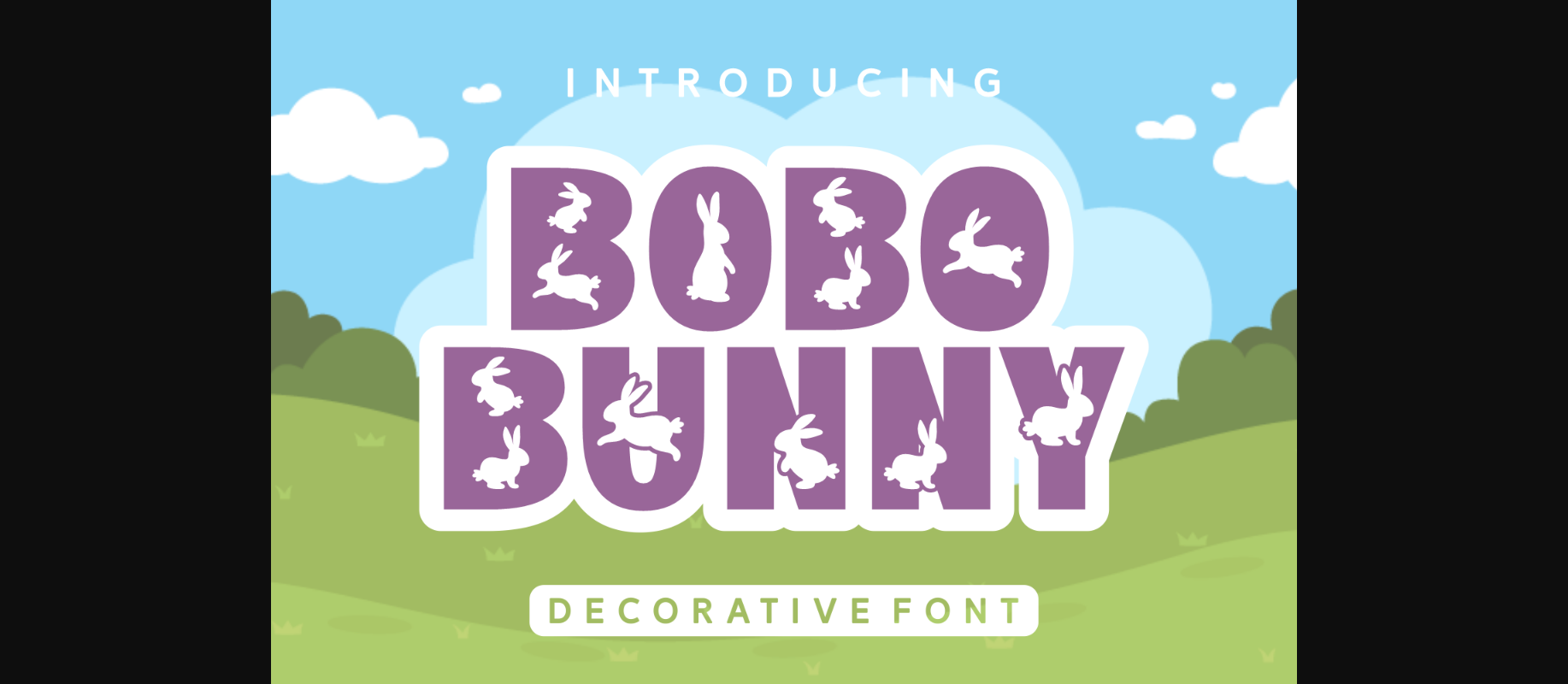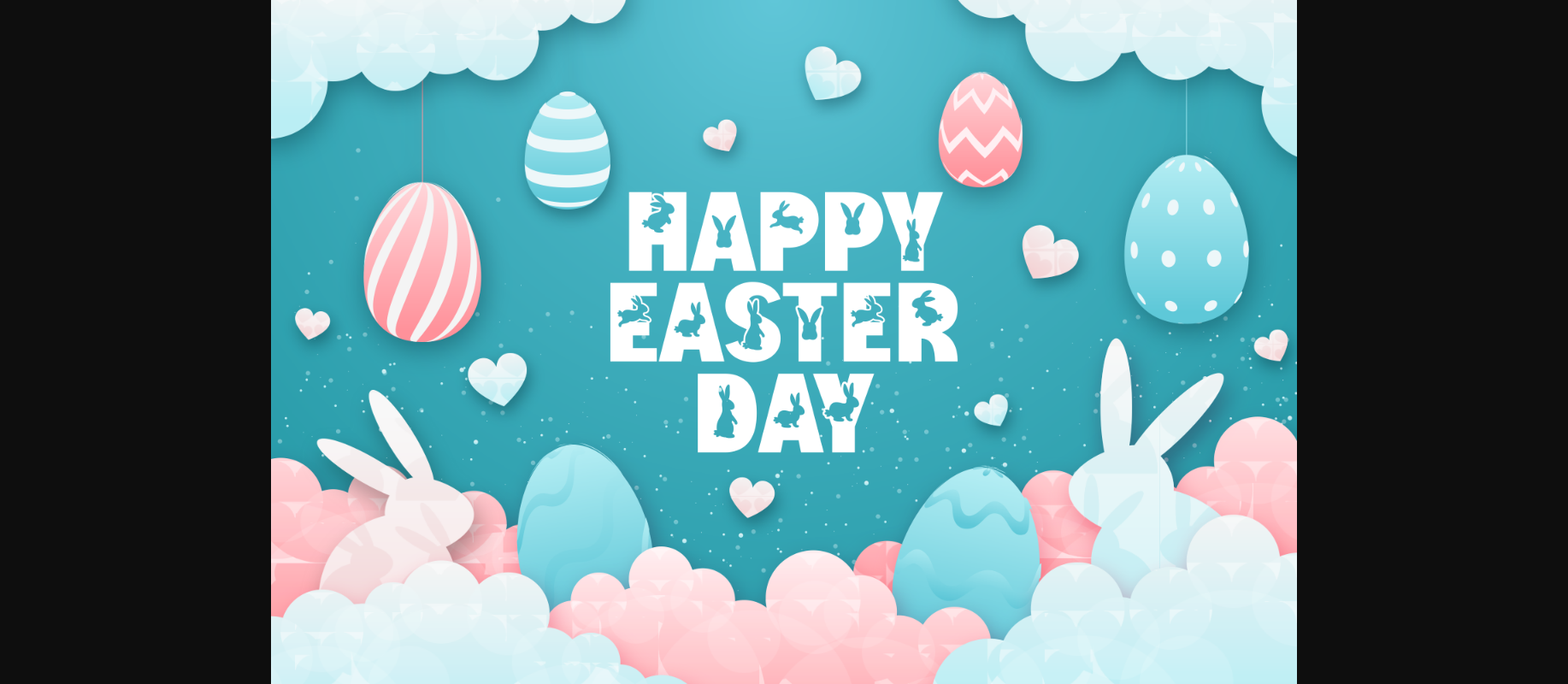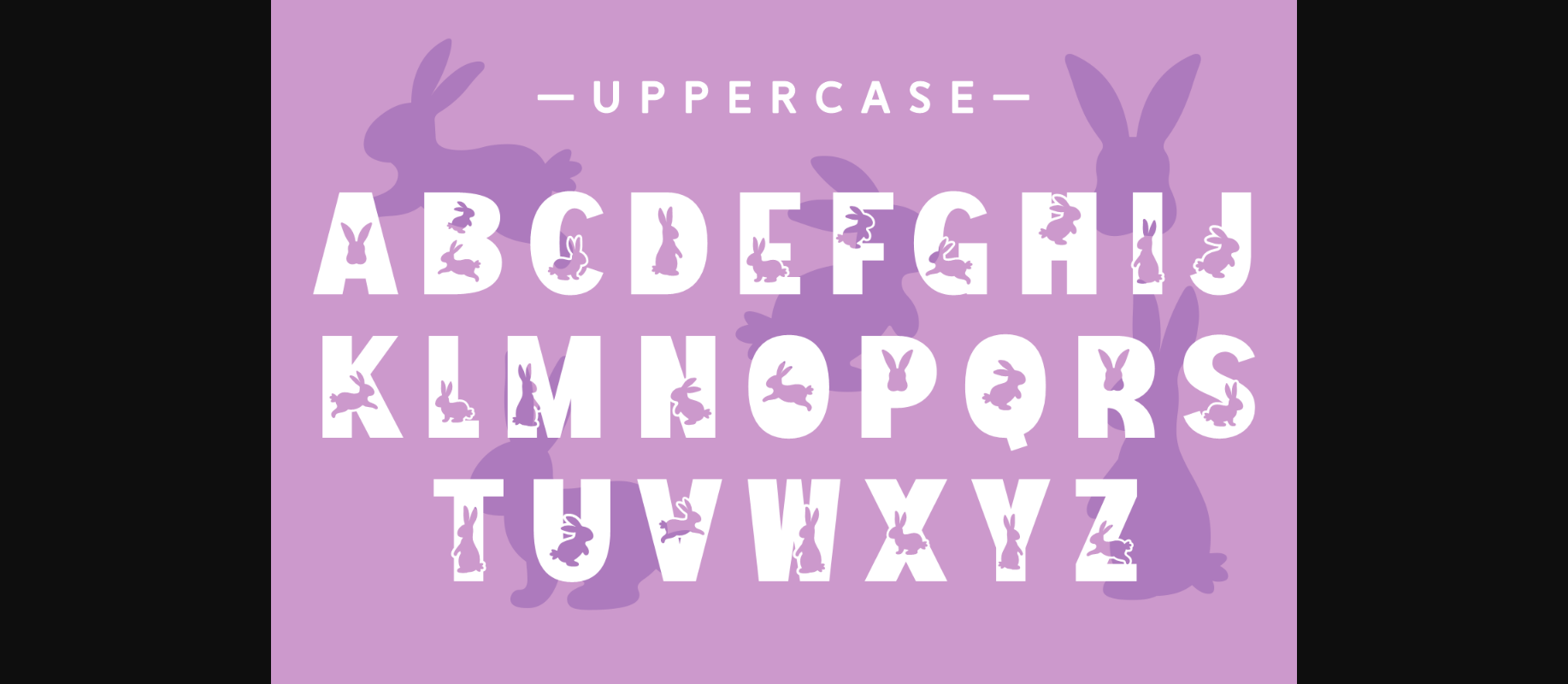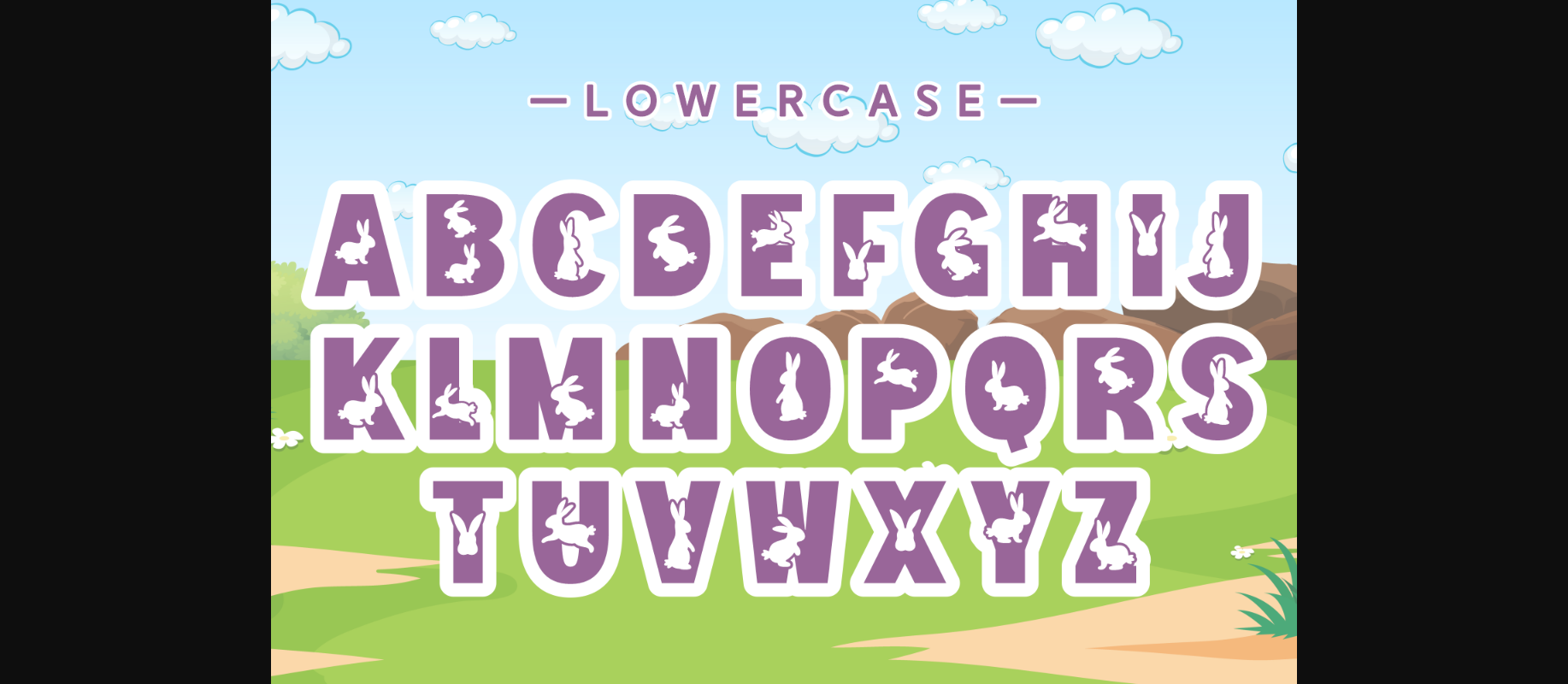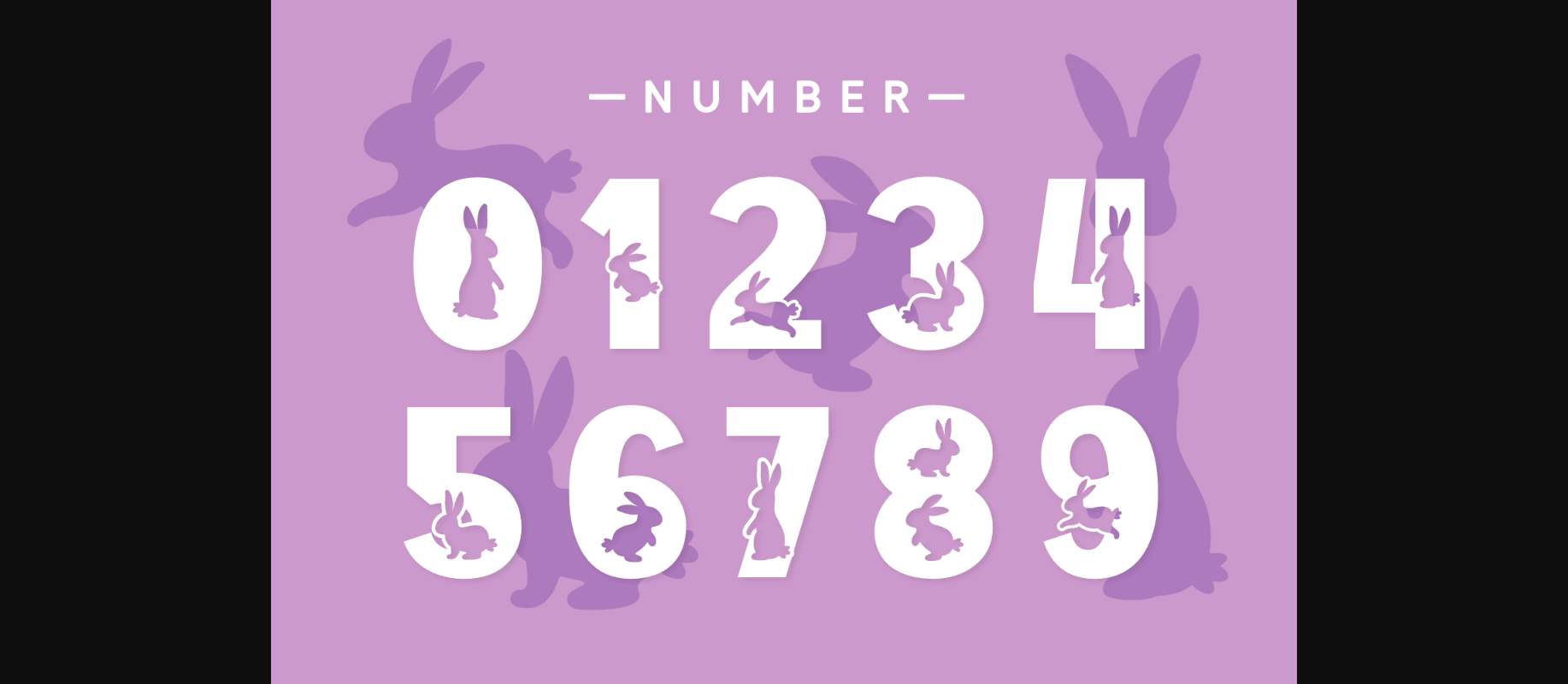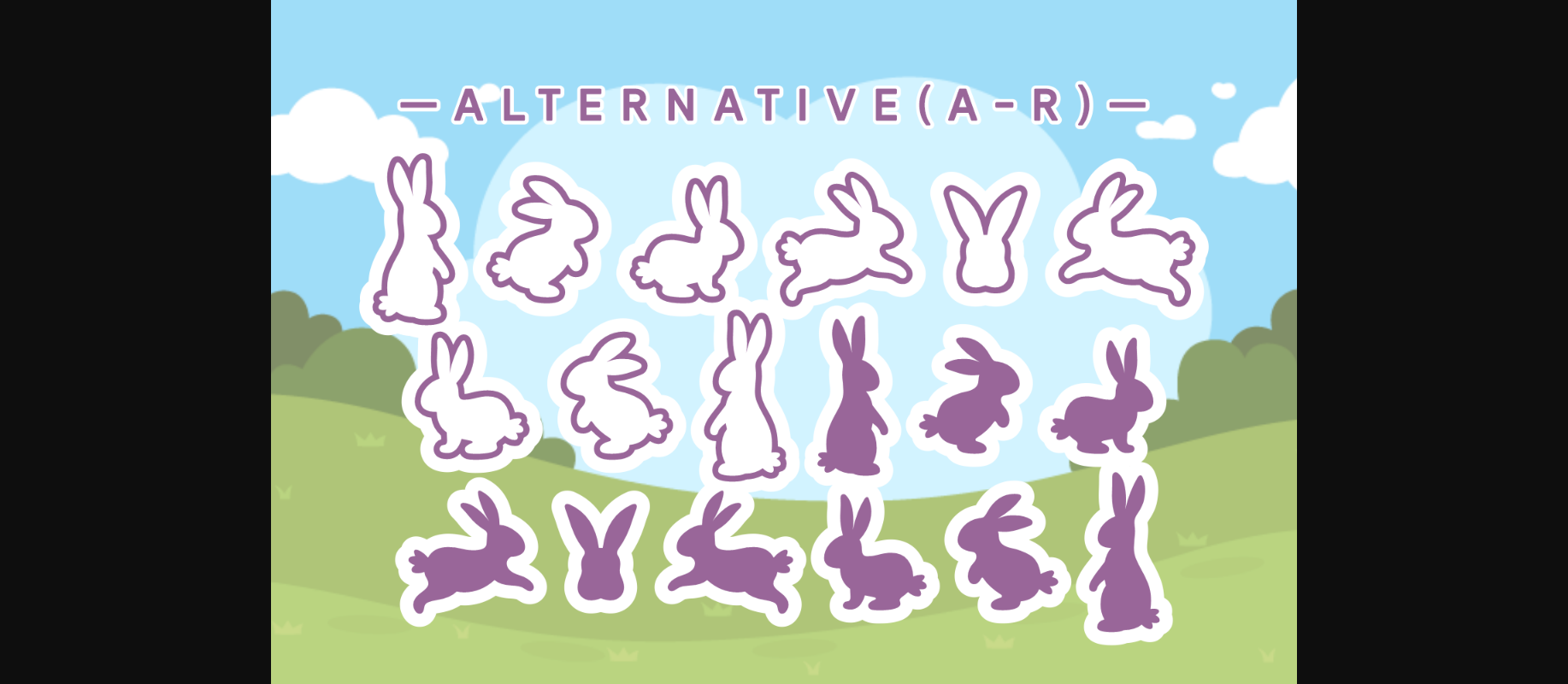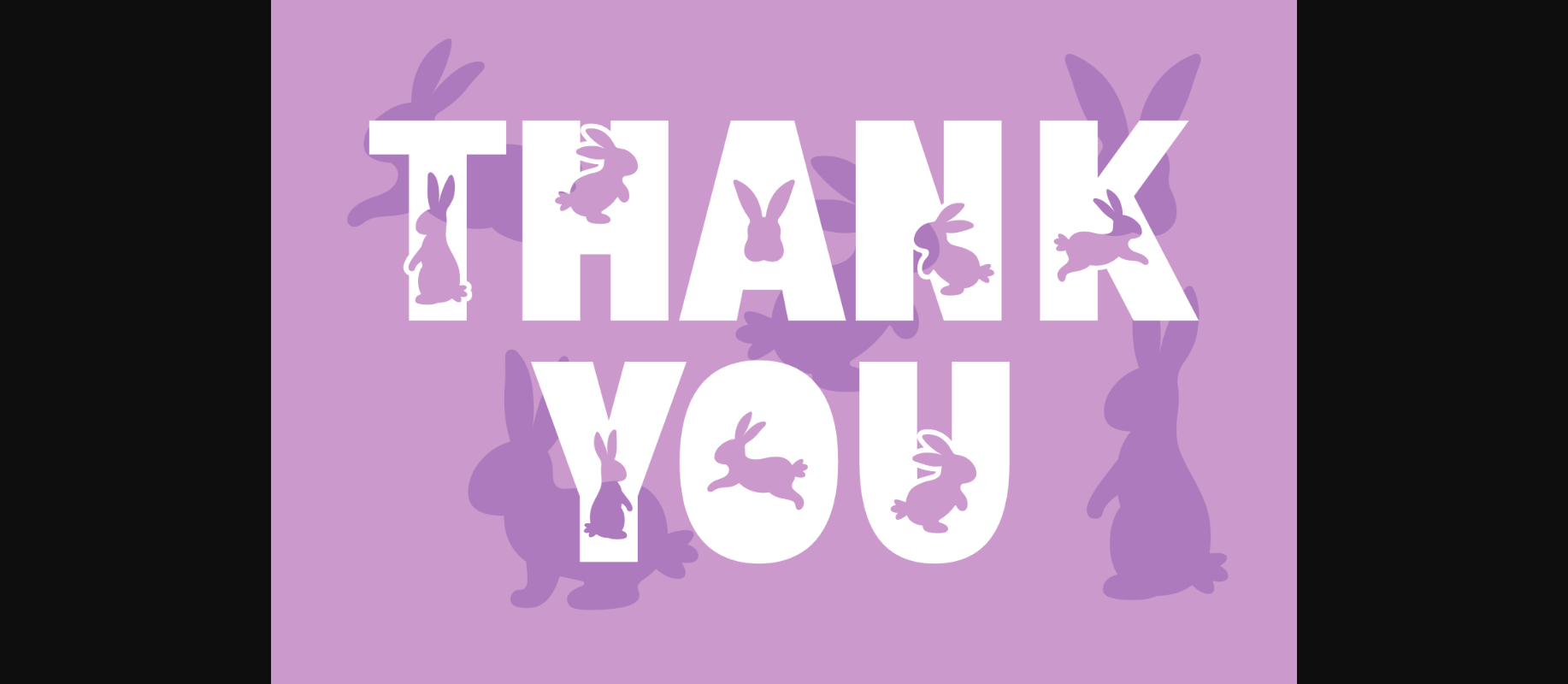
About Bobo Bunny Font
Bobo Bunny is ready to hop directly on your Easter cards and spring decorations. This lovely decorative font features a creative set of characters with curious little bunnies hopping and running. Grab this Easter-inspired font and use it for Easter cards, quotes, decorations, art prints, t-shirts, and anything else you desire.